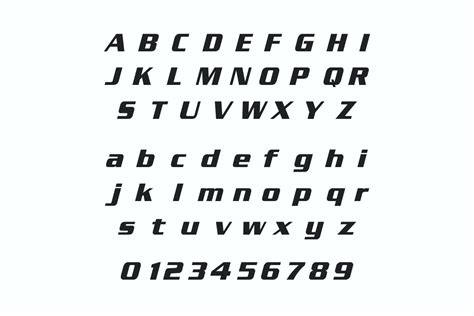
Mtn Dew Font. Web the current mtn dew font that is used for the logo is a custom font that is also inspired by serpentine, but has a simpler and more.
Web the current mtn dew font that is used for the logo is a custom font that is also inspired by serpentine, but has a simpler and more.
Web the current mtn dew font that is used for the logo is a custom font that is also inspired by serpentine, but has a simpler and more. Web the current mtn dew font that is used for the logo is a custom font that is also inspired by serpentine, but has a simpler and more.